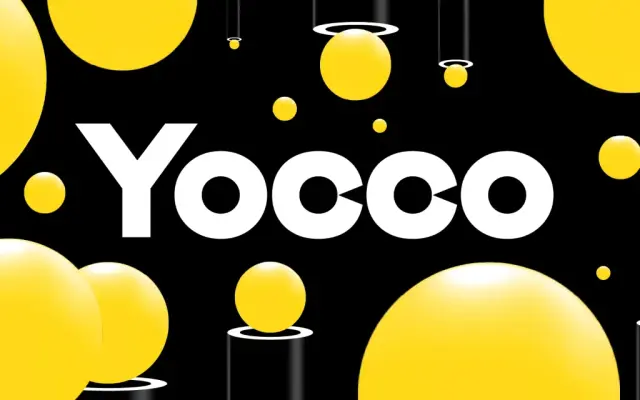
Yocco
A geometric sans with closed terminals and minimal contrast, available in five weights plus a Bright variant for each, with a variable font included.
Closed terminals on letters such as a, c, e and s give the design a tighter, more considered geometry than most workhorse grotesques, and an alternate single-storey a reinforces that character. The family ships in ten static styles across five weights, each paired with a Bright variant, alongside a variable font offered free with the family purchase. Minimal stroke contrast keeps the rhythm even across body copy and interface text alike.
Yocco is explicitly positioned as a geometric sans serif, with circular forms, minimal contrast and closed terminals that reinforce its geometric character throughout.